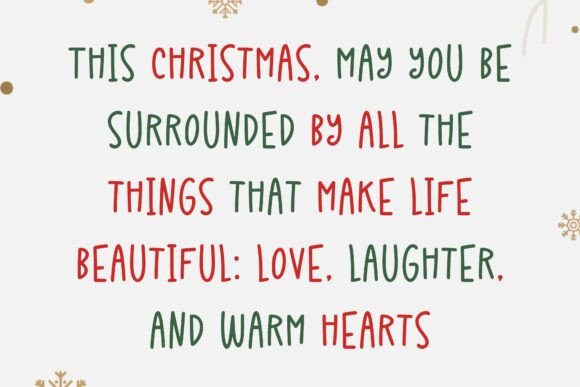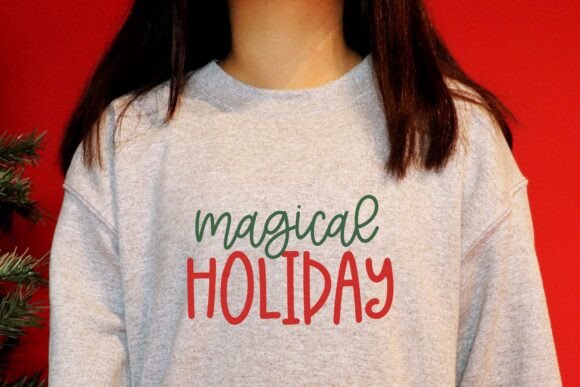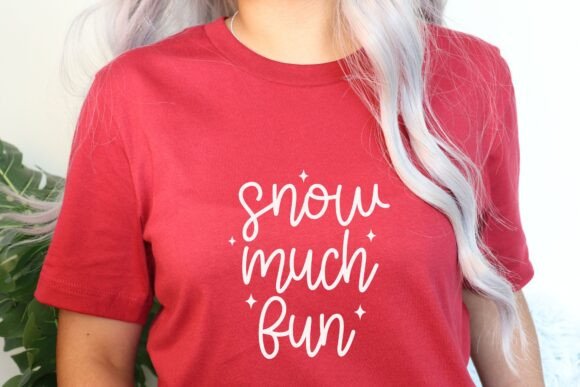
Christmas Delight Font
Indulge in the festive spirit with Christmas Delight – an enchanting Mix Font Duo. Crafted with utmost precision to encapsulate the heartwarming allure of the holidays, this font cherishes the harmonious balance of a minimalist serif typeface and a delicate, heart-stealing script typeface. The ideal choice for all your winter wonderland and merry Christmas creative endeavors, it seamlessly sets the perfect mood. Be it a heartfelt quote, a season’s greeting card, romantic nuptial invitations, cherished birthday wishes, stylish t-shirt logos, or a personalized mug, Christmas Delight breathes life into your designs like no other. Be ready to captivate and celebrate with this unique, festive font.